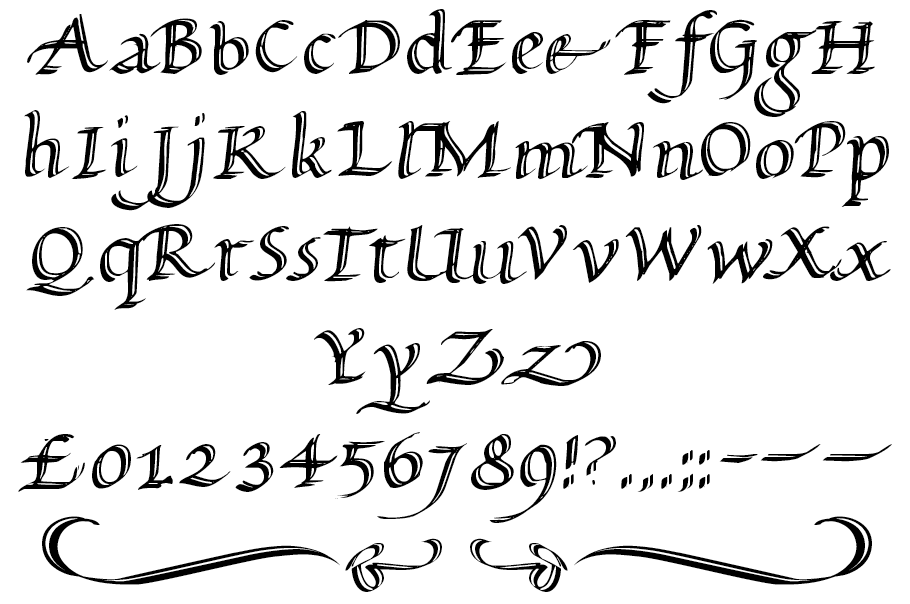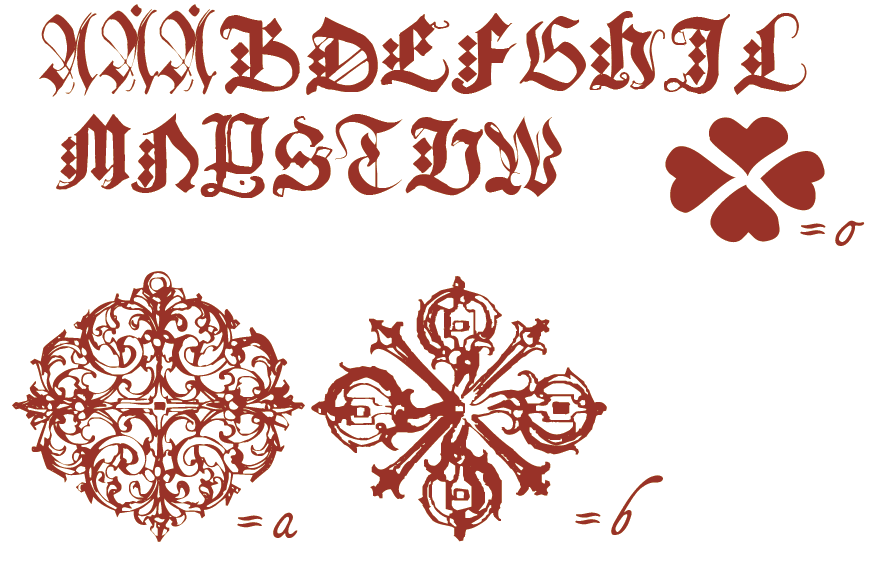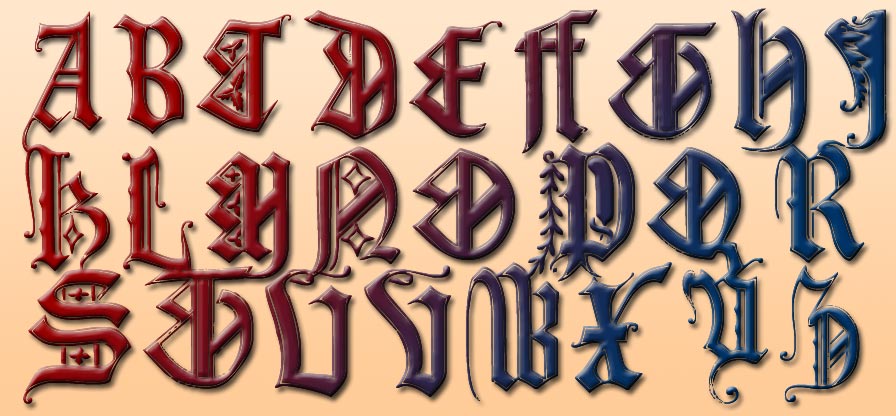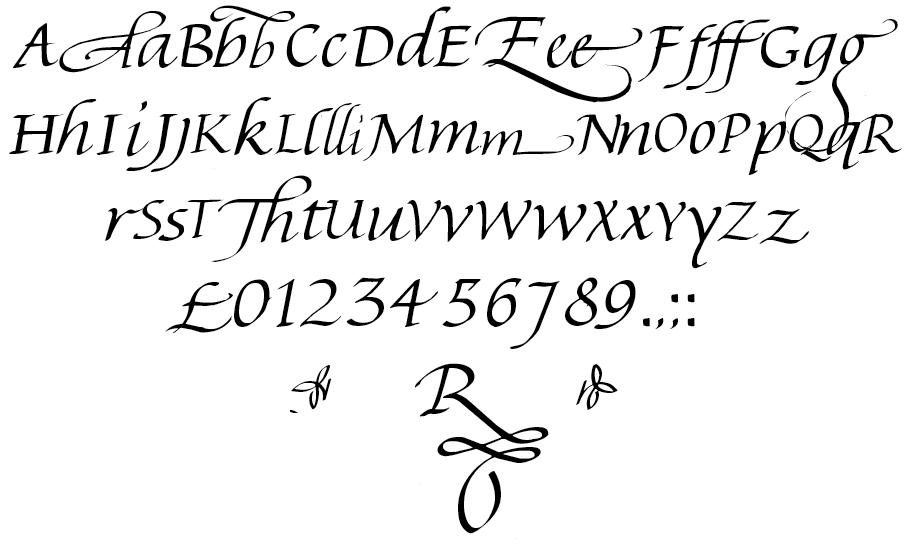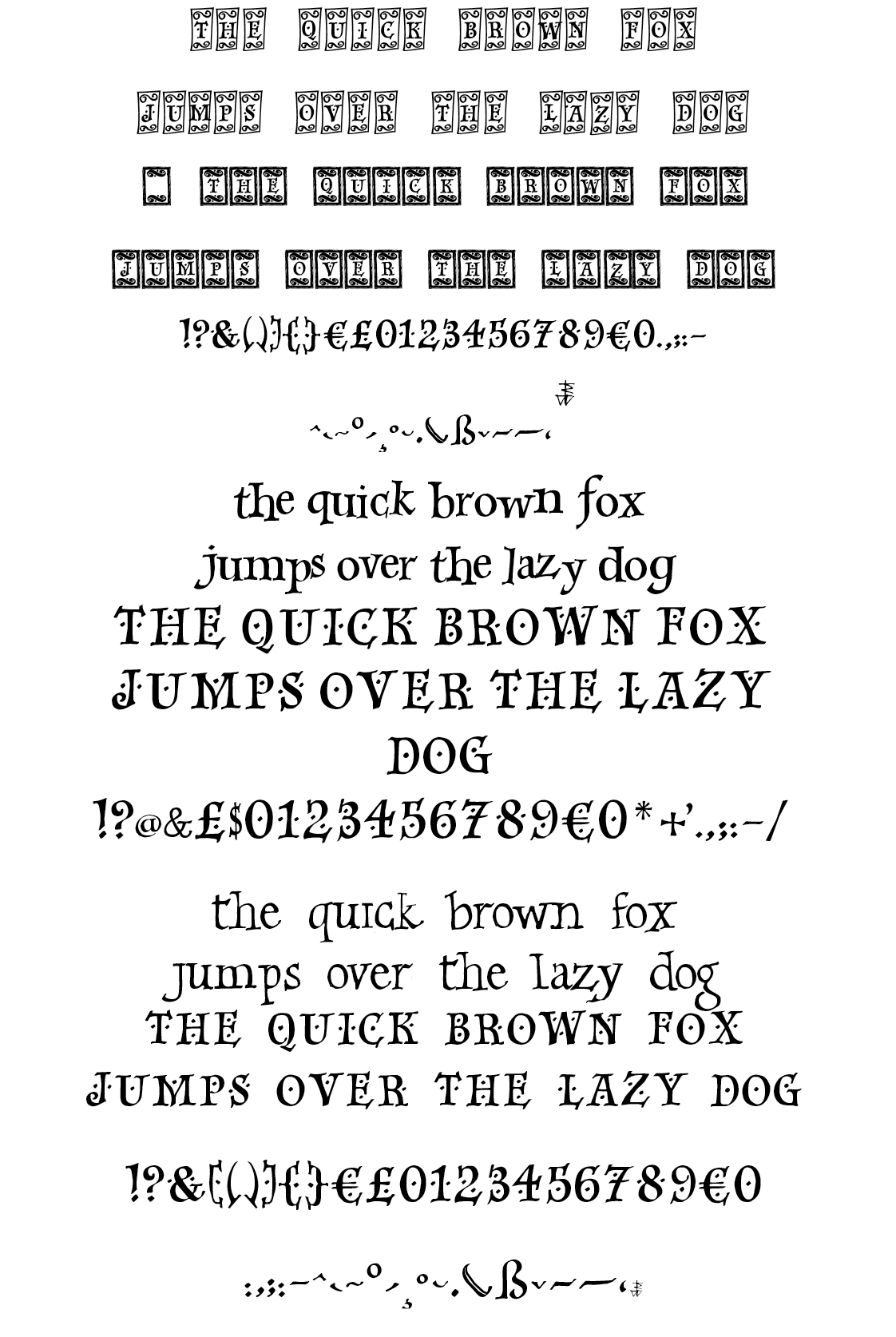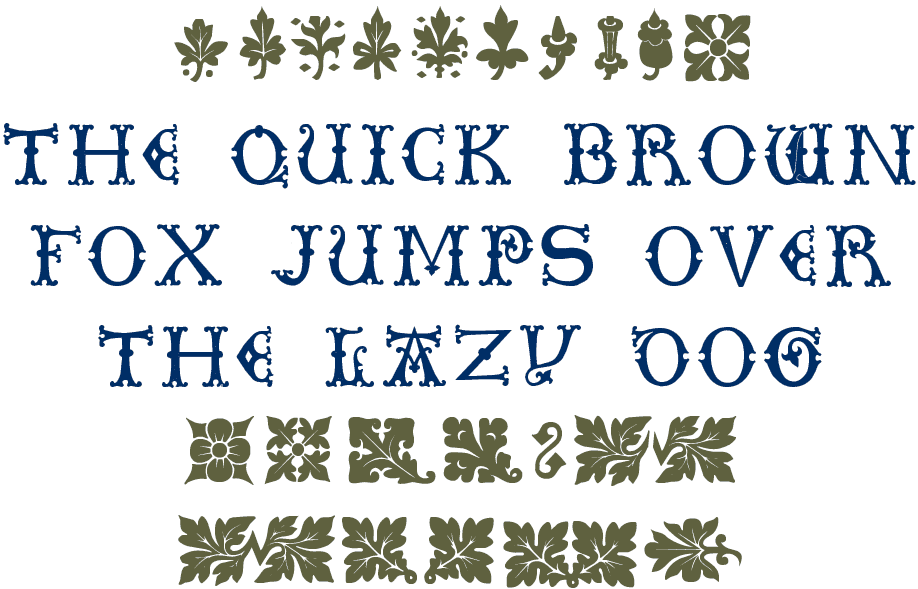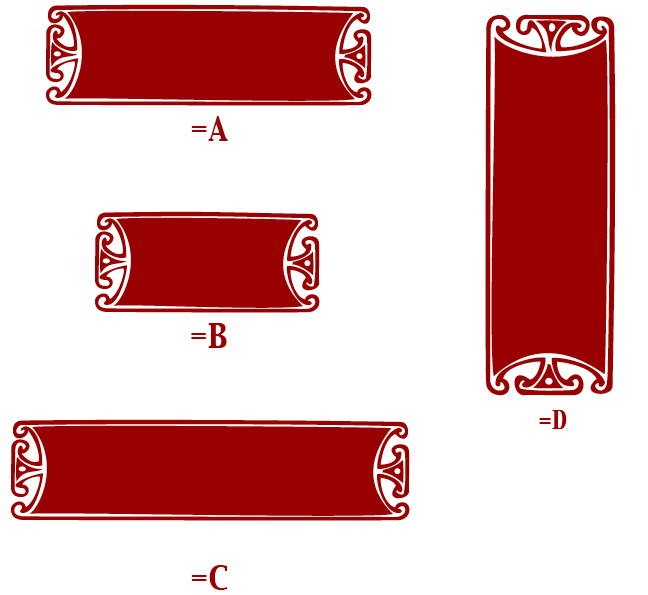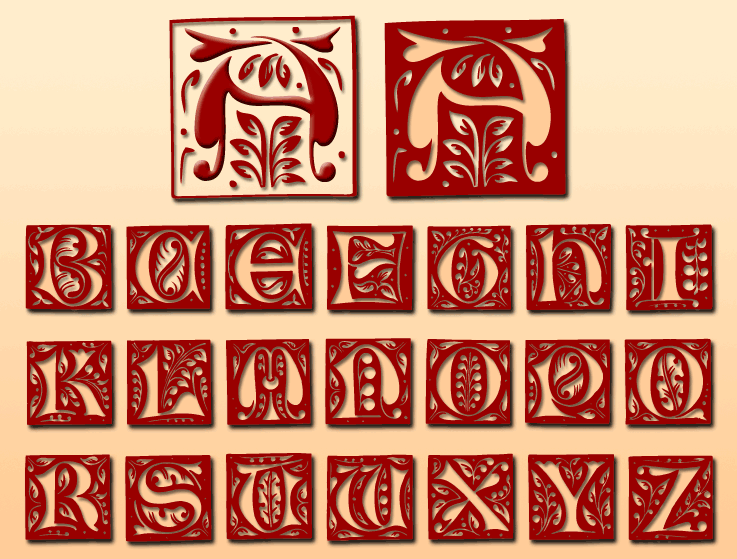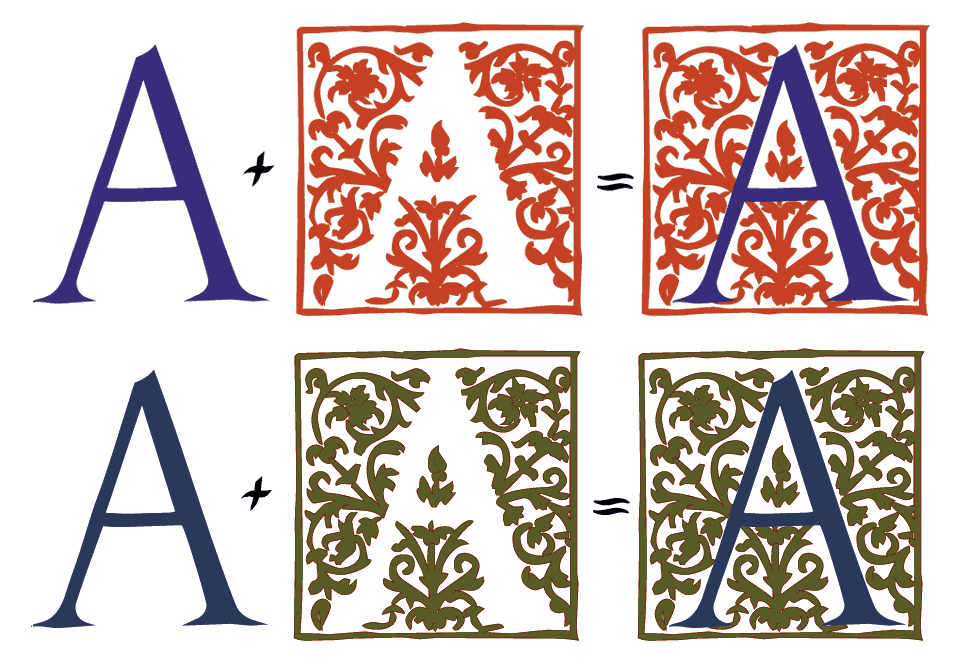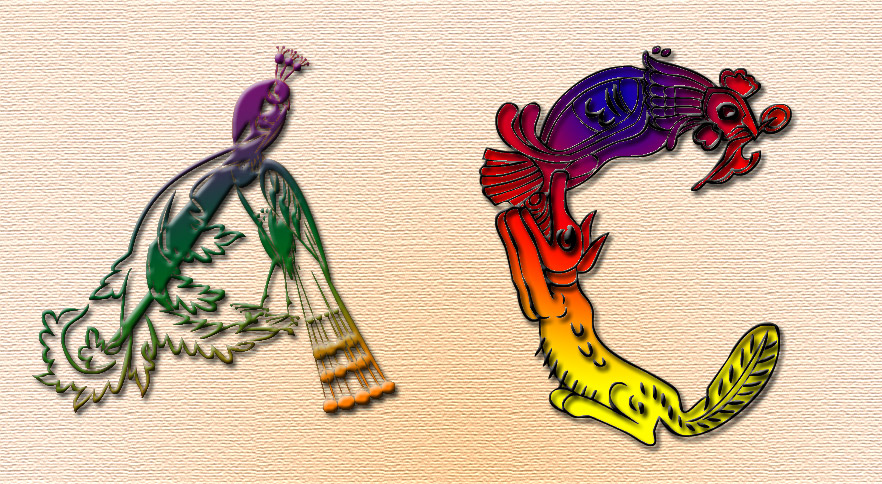
Ashbourne 1241: from a Derbyshire gravestone
Chiswick Illuminated Caps: five styles giving many possiblities
David's Roundhand: with two different sets of capitals - Lombardic and Round
Rick's Relaxed Italic
(Richard) - three weights - Italic, Medium Italic, Bold Italic
Sevillia suite
(Richard):
dancing text - formal text
informal tiles - formal tiles
Alice ScrollTip
(Richard)
Karin's Lombardy Caps
- two versions, finer and bolder fills within the same outlines
Soest St. Mary
all the Latin capitals and small letters and a few other bits and pieces
Davie's Roundhand - Lombardic Capitals only: a later version with Round Capitals as well, above
DeBeauChesne Roman
Rick's Classic Italic
(Richard)
Rick's Folklore Roman
(Richard)
Rick's Relaxed Italic
(Richard)
- a later more developed version with three weights - above
all the capitals
Bickham SwashCaps
(a quick sketch for those who can't afford
Adobe's version with three weights at $35 each)
Chiswick Black Caps
(there's a later, more developed version above)
Davie's Sapphire
Davie's Romantique
Lettre ornée
King Richard II Caps
Rick's Decorated Uncials
(Richard)
NesbittDecoCaps
Shaw Decorated Initials 1
Shaw Decorated Initials 4
Taliente Illucaps
Westminster Memorial Brasses
incomplete set of characters which might be of some use to somebody some time:
if someone asks for the rest I'll do them
Anders Fancy capitals - 12 letters
Anders plain capitals
- 17 letters, 3 ornaments
Cartouches after Lodovico Vicentino
- 4 shapes
Celtic Noad
- 21 letters
Dagmar's IlluCaps
- only one letter so far, but it's a beautiful one!
- a classic capital 'A' with a separate background at 'a'
Davie illuminated capitals
- only two letters, but they're fascinating!
Kurbits
- two roses and one poppy with leaves, but I'm raring to go and do a lot more!
Samuel
- 22 letters and a couple of curlie-whurlies